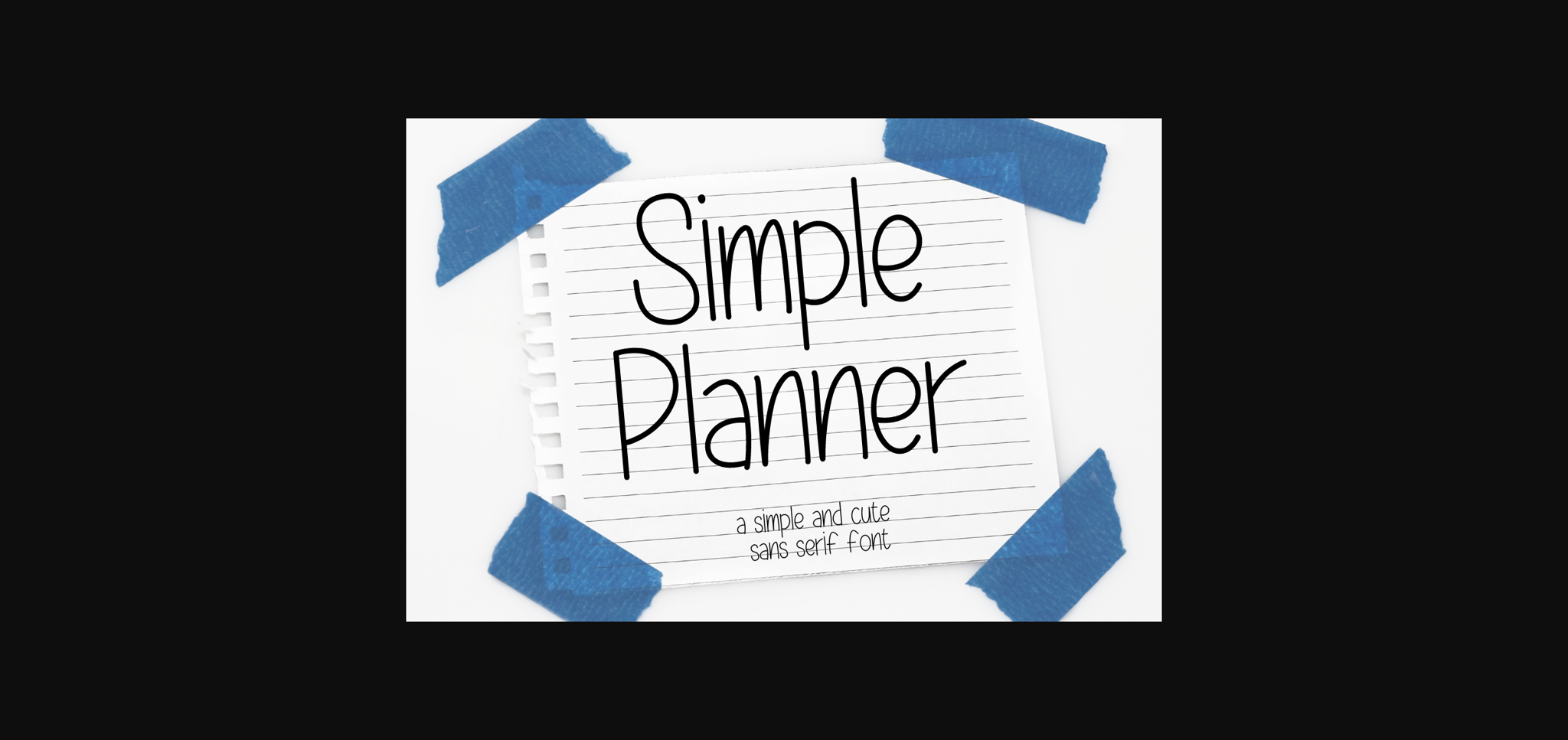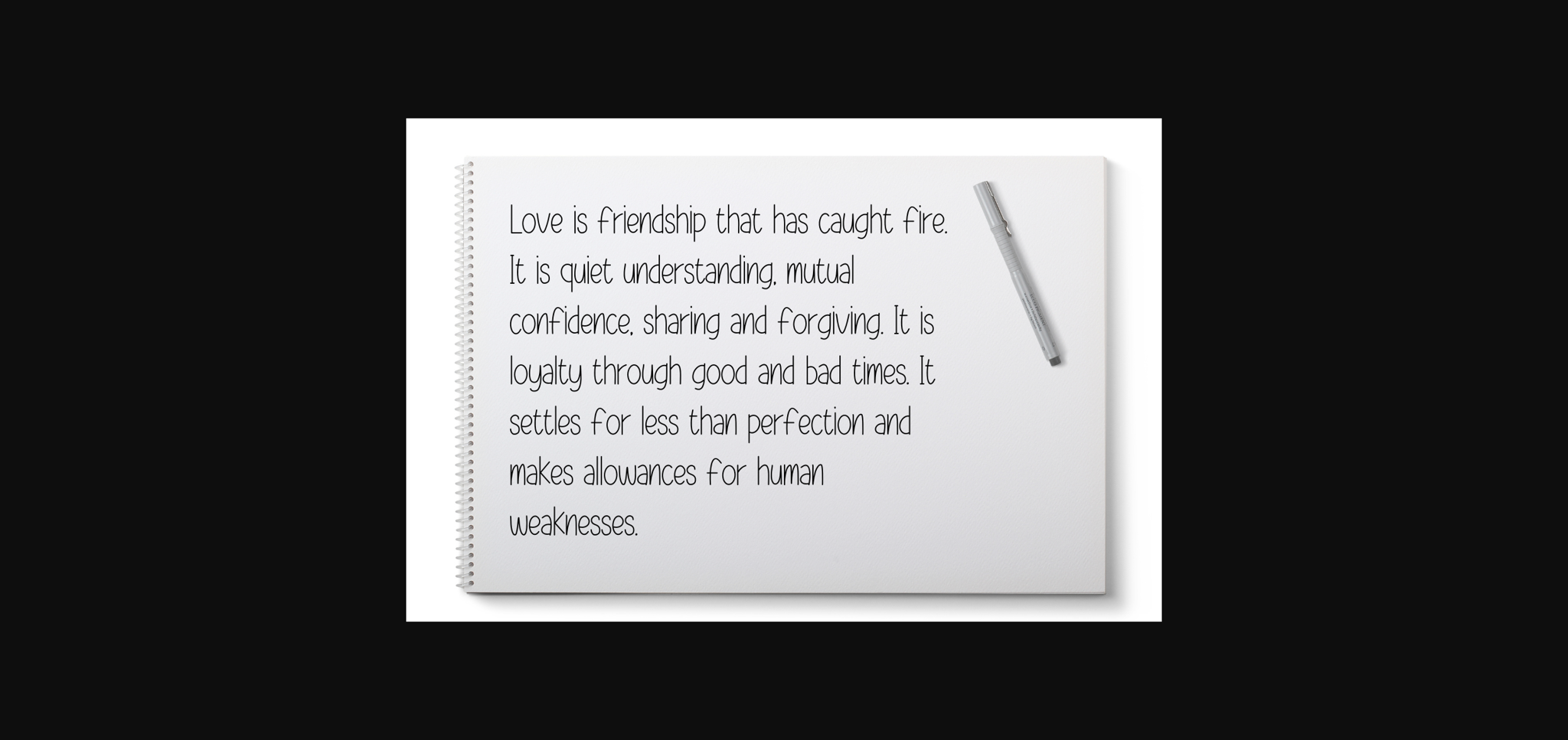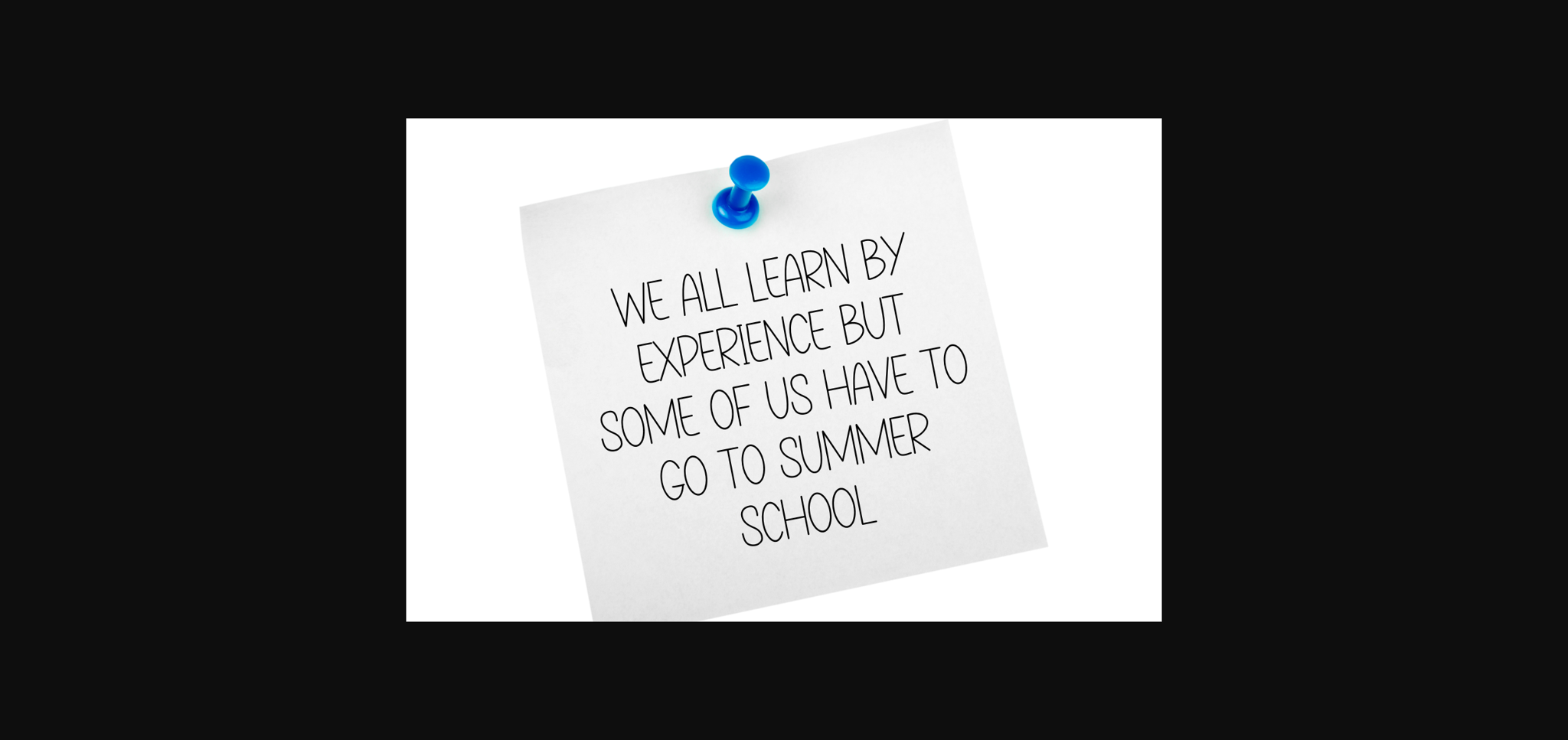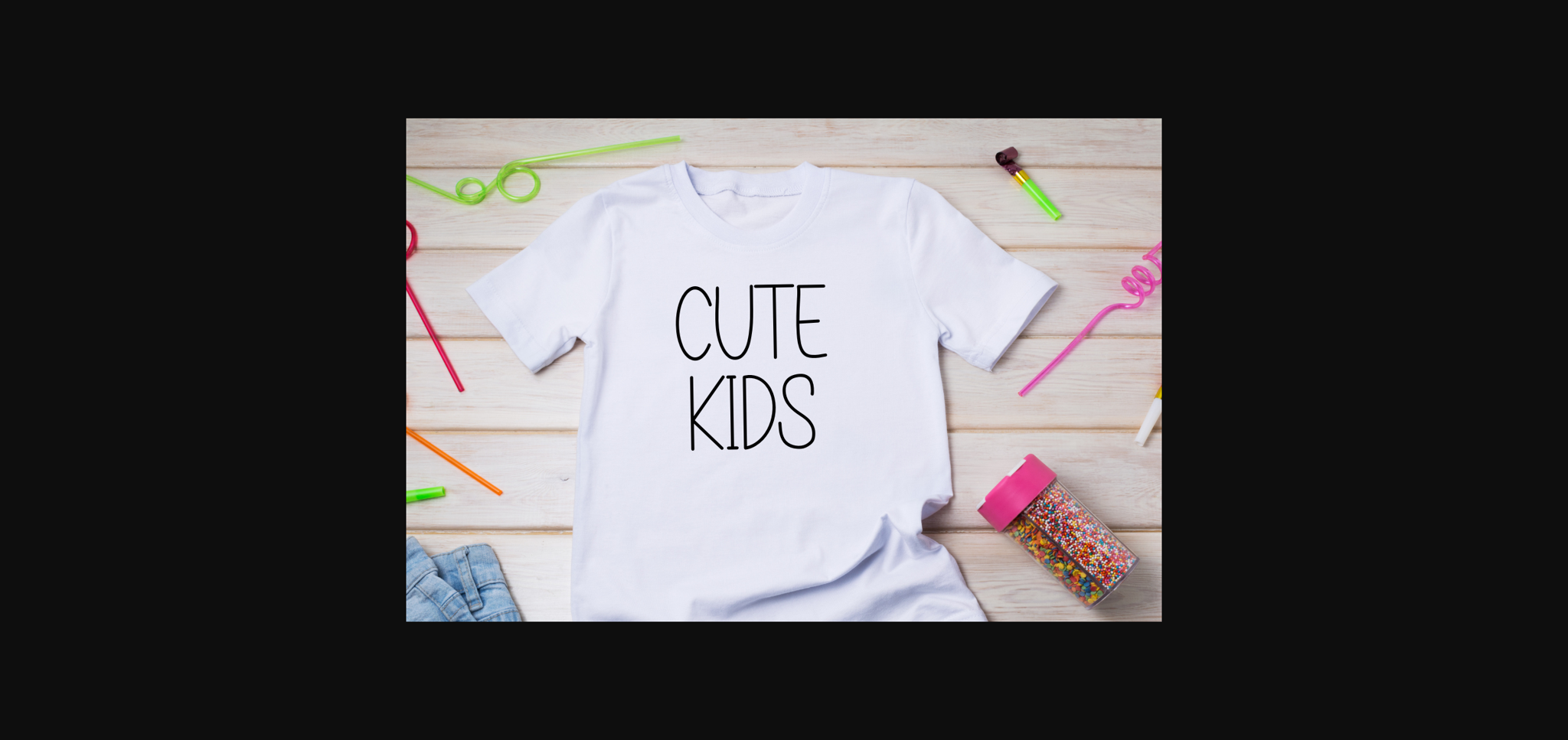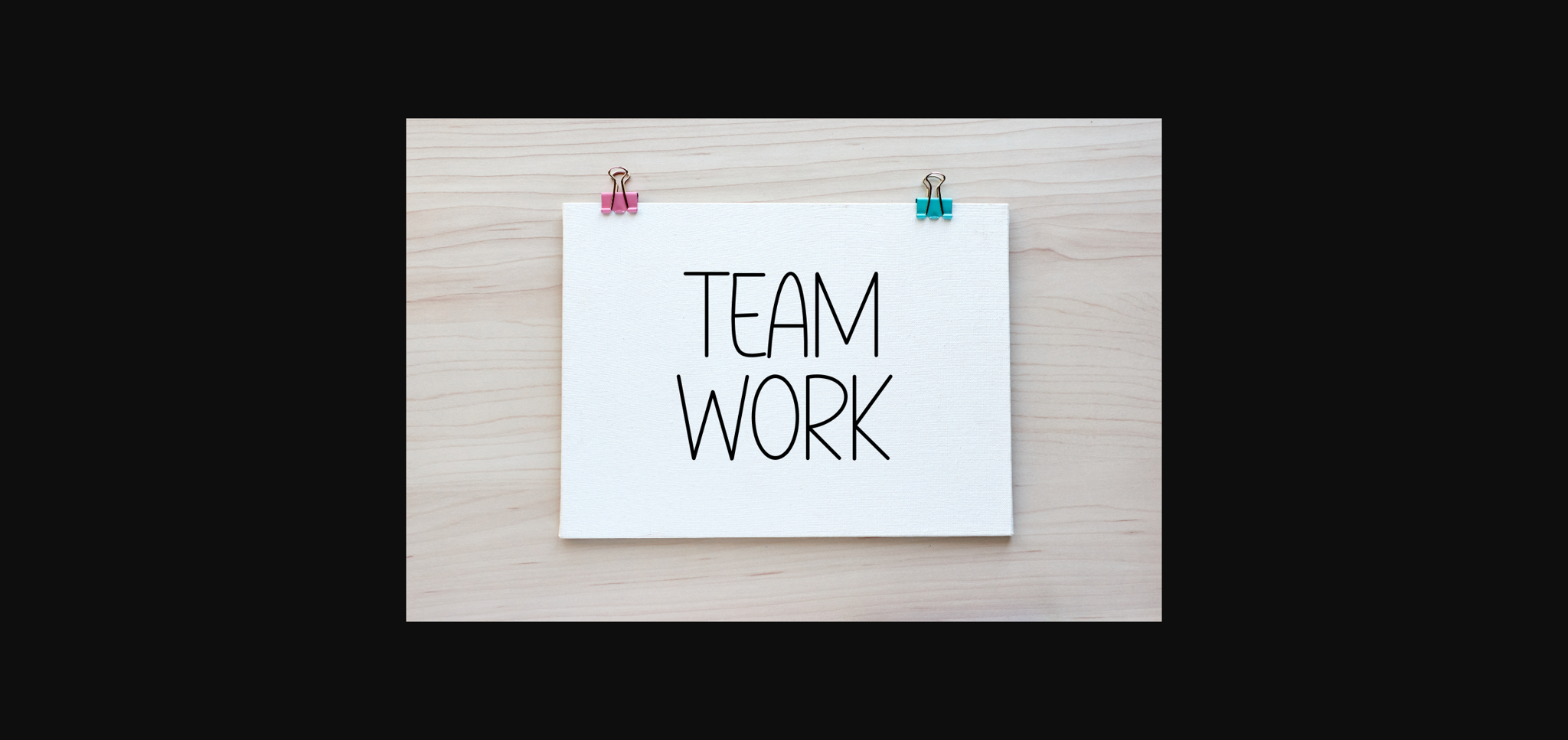
Simple Planner Font
About Simple Planner Font
Simple Planner is a cute and friendly sans-serif font designed to evoke a feeling of warmth and approachability. With clean and simple letter shapes, it brings a fun charm to your designs. Ideal for projects seeking a friendly, light aesthetic, Simple Planner adds a fun touch to your creative expression.